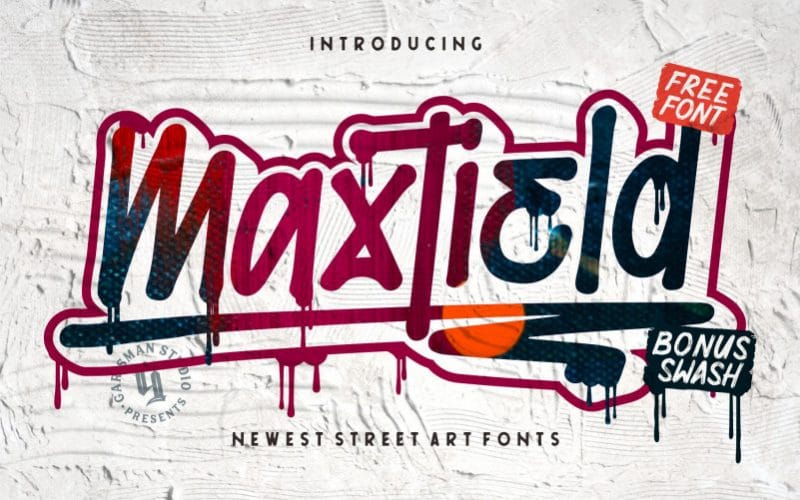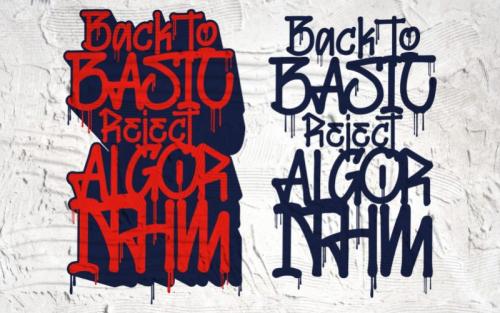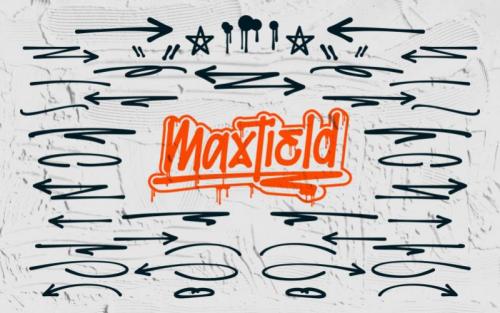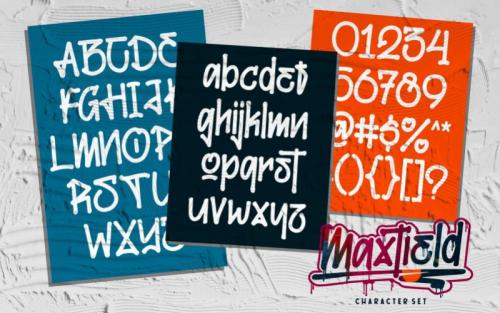
Inspired from street art born MAXTIELD Suitable for many design project, branding, packaging, logo, wall art, headline, template, banner, poster, and many more projects. These include all caps, punctuation, and numerals.